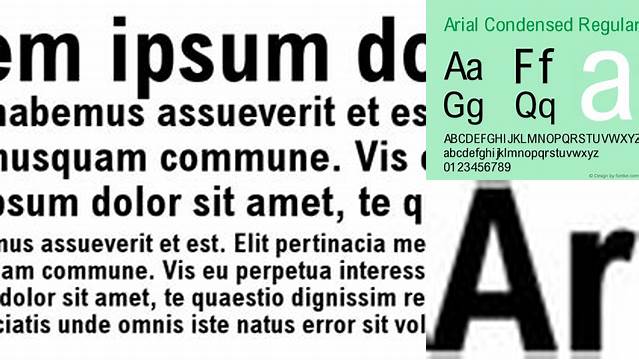
1. What is Arial Condensed?
Arial Condensed is a narrower version of the classic Arial font, making it perfect for situations where space is at a premium. This typeface maintains the legibility and clean lines of its parent font, but its condensed form allows you to fit more text into a smaller area. It’s a sans-serif font, meaning it lacks the small decorative strokes (serifs) found in fonts like Times New Roman, giving it a modern and streamlined appearance. Arial Condensed is often used in headlines, tables, and other design elements where maximizing space is crucial. Its neutral design also makes it a versatile choice that can be used in a wide range of applications, from corporate documents to marketing materials.
2. The History and Evolution of Arial Font
The history of Arial is pretty interesting! Designed in 1982 by a team at Monotype, it was intended to be a competitor to Helvetica. Over the years, Arial has become one of the most ubiquitous fonts in the world, largely due to its inclusion in Microsoft Windows. The evolution of Arial includes several variations, with Arial Condensed being a particularly useful adaptation. This condensed version addresses the need for a more space-efficient typeface without sacrificing readability. While some designers have strong opinions about Arial versus Helvetica, there’s no denying that Arial has made a significant impact on the world of typography. Its widespread availability and clean design have made it a go-to choice for many.
3. Key Characteristics of Arial Condensed
Arial Condensed stands out due to its unique characteristics. Its narrow width allows for efficient use of space, making it ideal for tight layouts and designs. The font maintains excellent legibility even at smaller sizes, a critical factor for body text and detailed tables. Additionally, Arial Condensed features a consistent stroke weight, contributing to its clean and modern appearance. The letterforms are simple and unadorned, ensuring that the font remains neutral and versatile across various design applications. These characteristics make Arial Condensed a reliable choice for designers looking for a functional and aesthetically pleasing typeface.